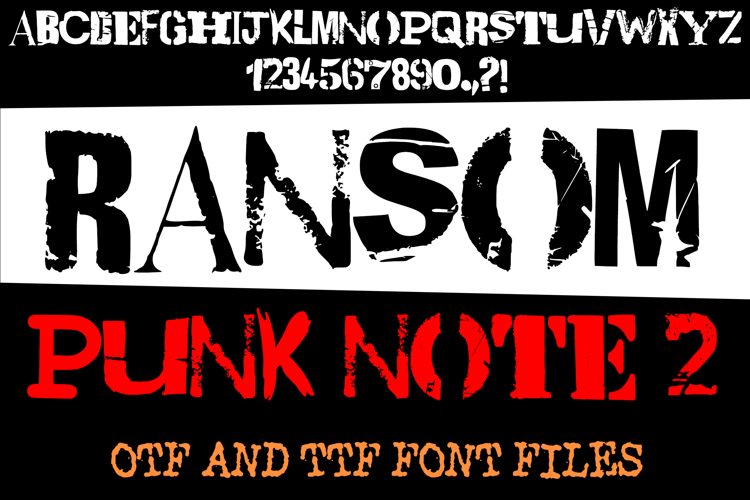
Ransom Punk Note 2 Distressed Lettering ABC Font Typography
Ransom Punk Note 2 is a gritty ransom-note style font with a distressed, cut-and-paste look inspired by punk rock posters, underground zines, and DIY street art. This font delivers raw texture and rebellious energy, making it the perfect choice for bold, alternative designs.
Whether you’re working on album covers, grunge-style apparel, stickers, flyers, tattoos, or edgy branding, Ransom Punk Note 2 adds a rough, handmade character that instantly stands out. Its chaotic ransom-note vibe brings personality and attitude to any creative project.